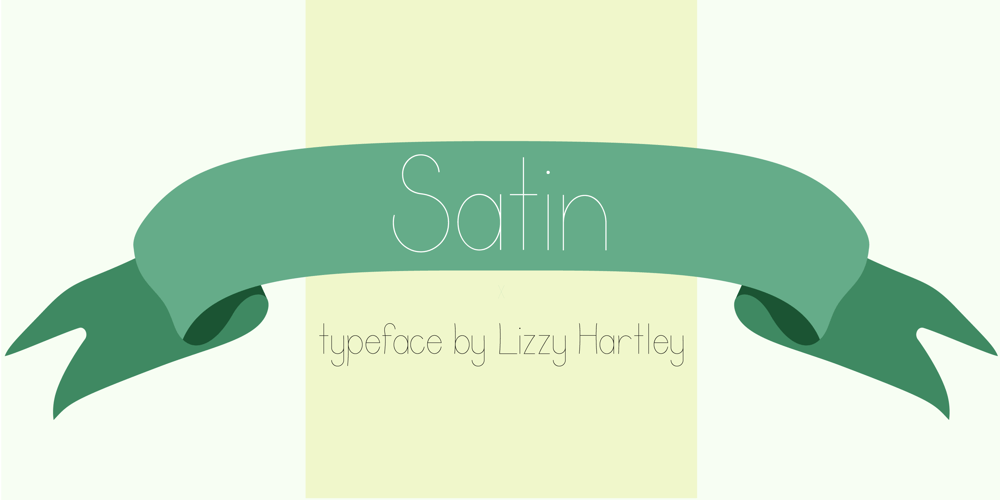
Satin Font Family was designed by Elizabeth Kate Hartley and published by Lizzy Hartley Design. Satin contains 1 styles and family package options. This simple design keeps its elegance through slight curves like satin draped over skin. Satin is tall and sleek. The curves are not completely symmetrical. The curves are perfectly balanced with long curves on the bottom half and shorter more dramatic curves in the ascenders.